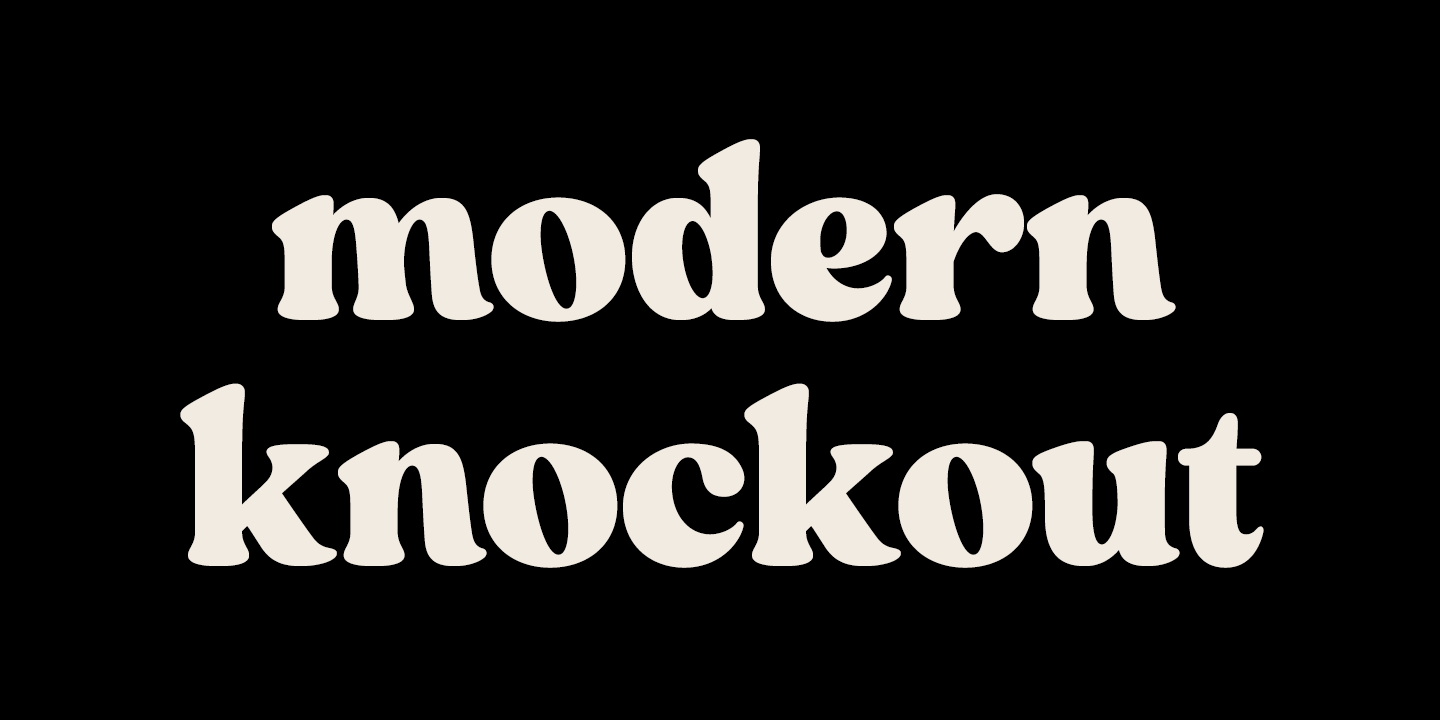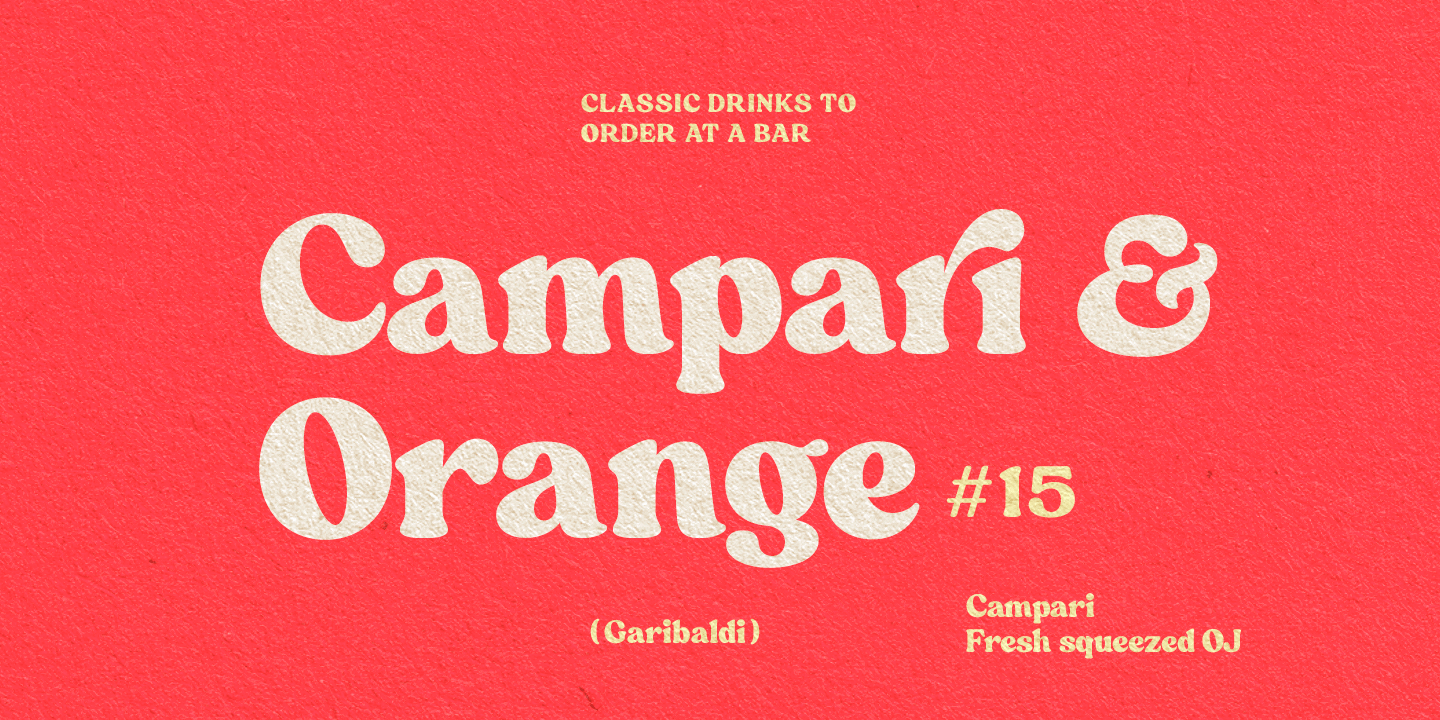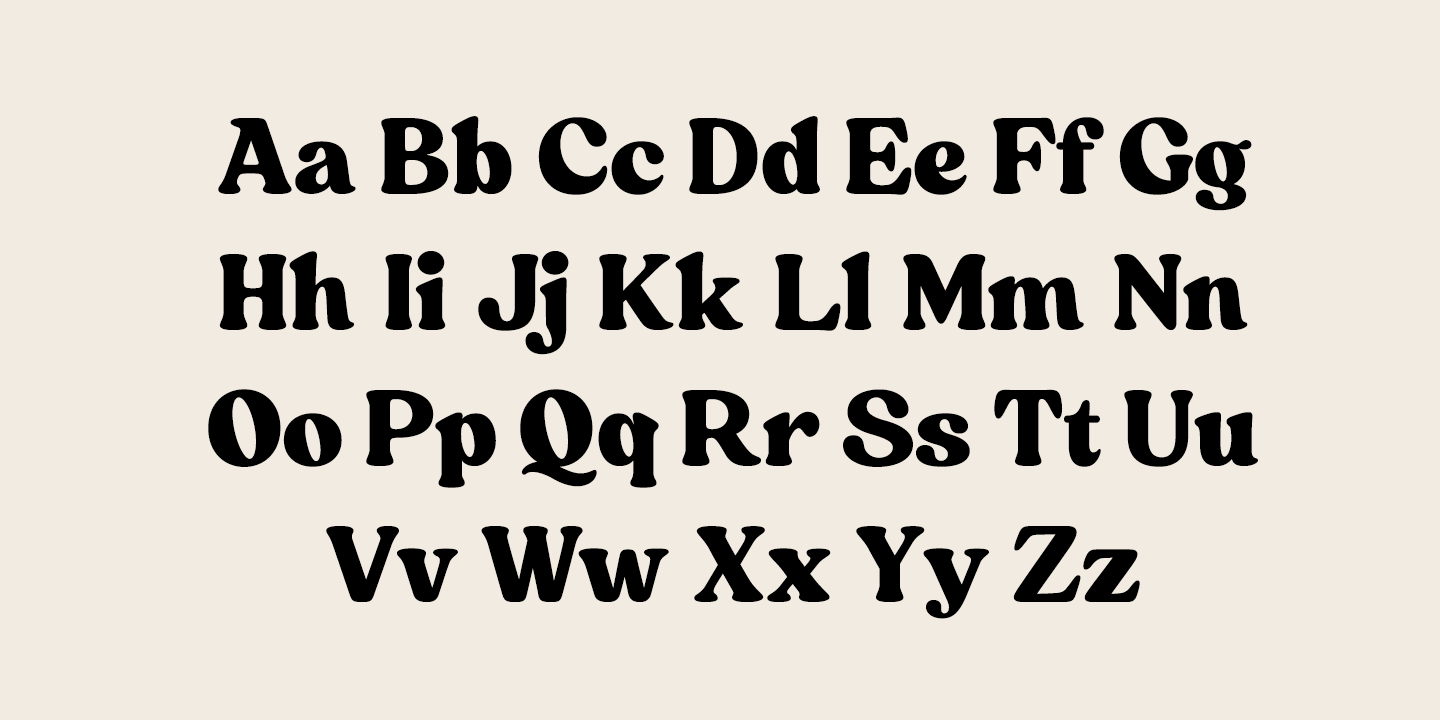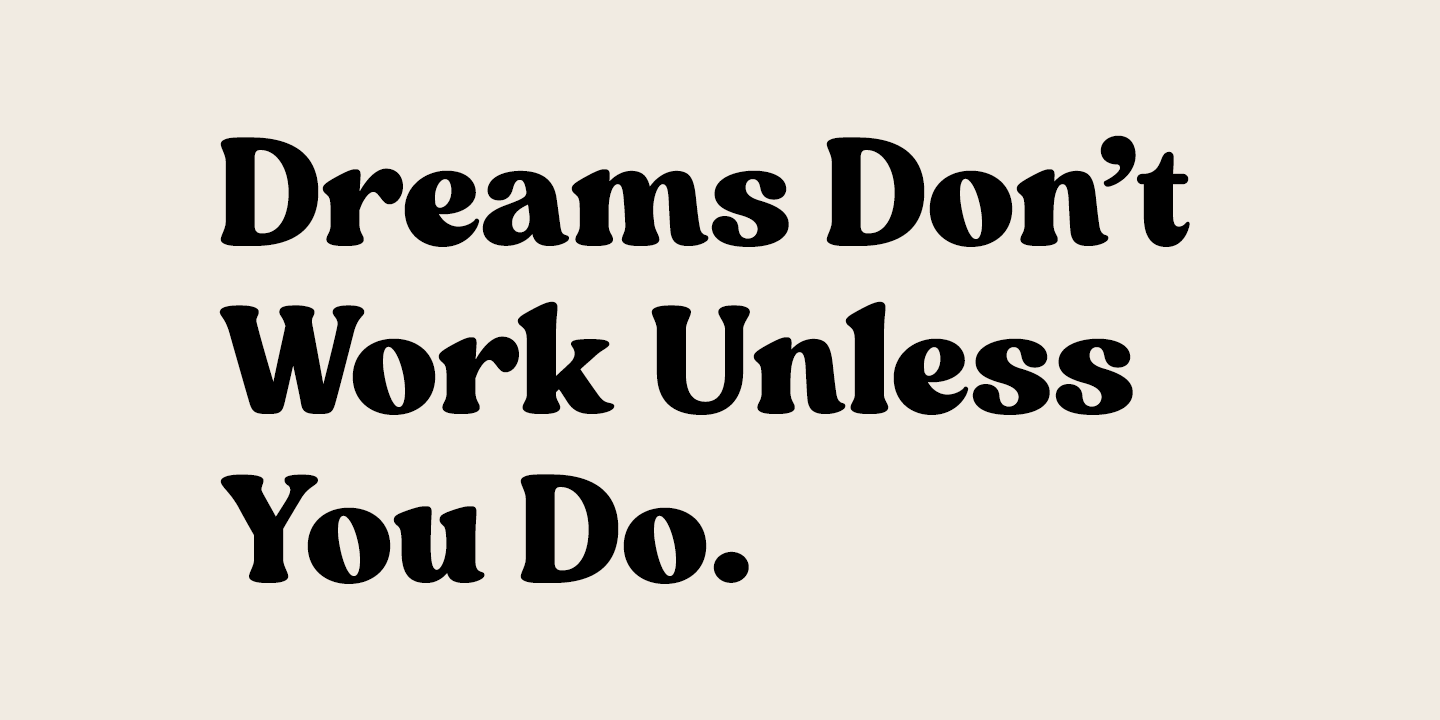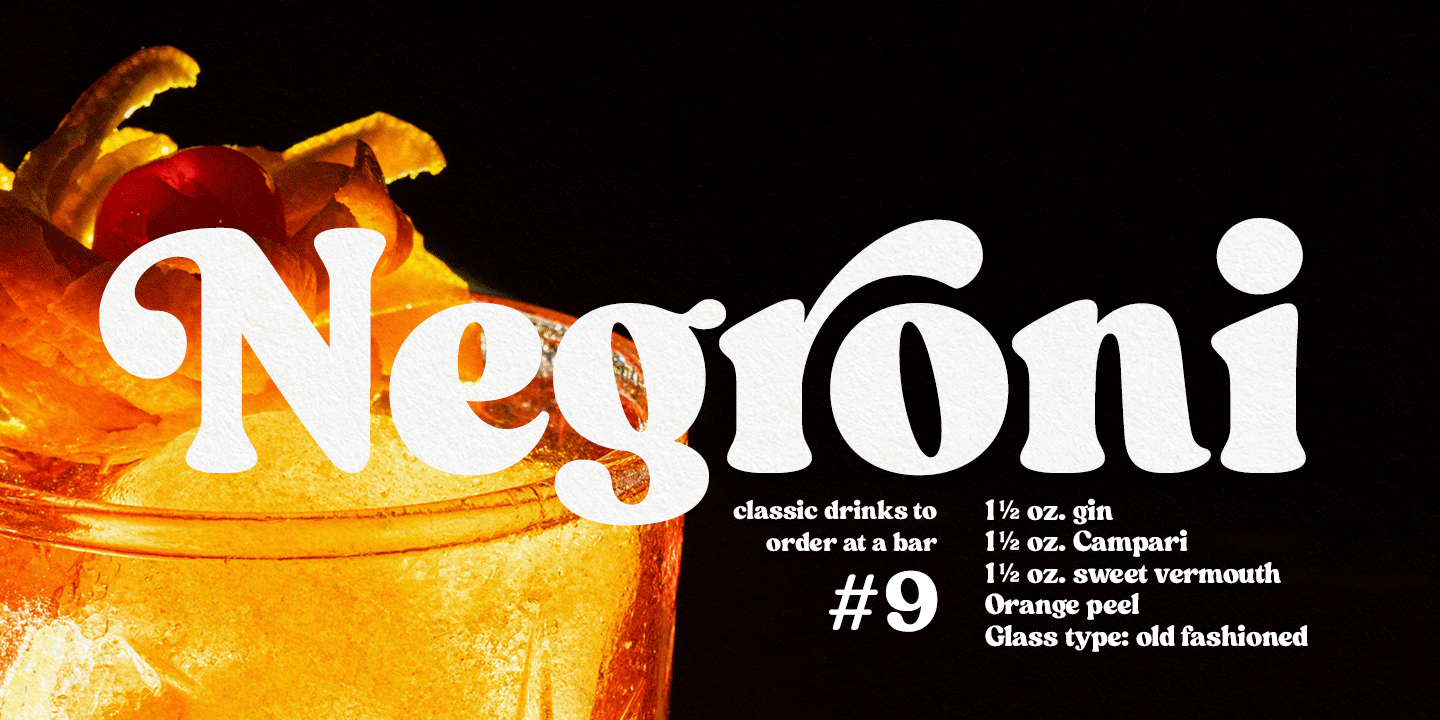
Skillet is a bold vintage style serif font full of hedonism and joie de vivre. Skillet has strong character and extremely smooth features and self-confidence that springs from within. Skillet comes in two weights: Regular and Condensed. Even though the…